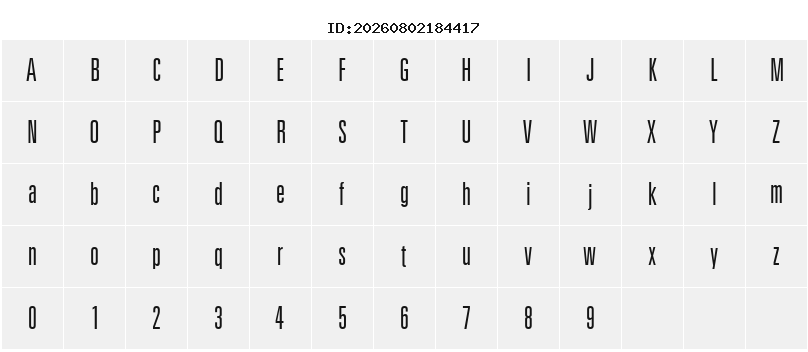
Nova Light Ultra SSi Preview
• Font Name: Nova Light Ultra SSi
• Font Style: Light Ultra Condensed
• Full Font Name: Nova Light Ultra SSi Light Ultra Condensed
About Nova Light Ultra SSi.ttf
Nova Light Ultra SSi.ttf is a modern, elegant sans-serif font designed for ultimate readability and visual harmony. Perfect for branding, headlines, web design, and print materials.